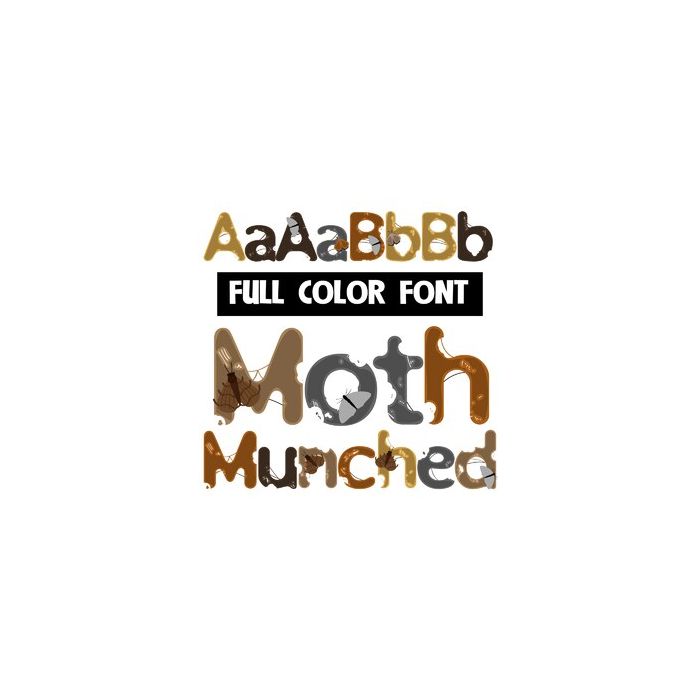
This full-color font feature earthy colored lettering, moth-munched holes and moths. There is a secondary alt case for both upper and lower that you can access through your system or Silhouette's glyph map.